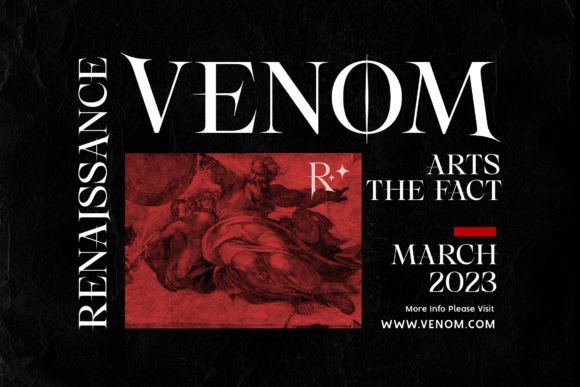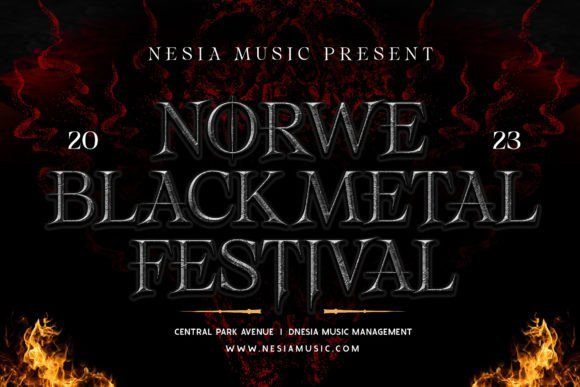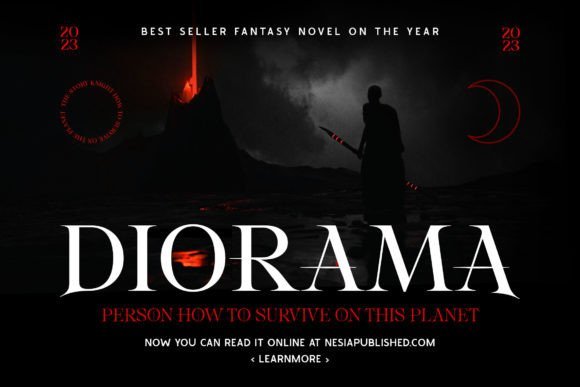
Rockmosh Font
Rockmosh is a classic magical and horror font that is perfect for your upcoming projects. Such as a logo, branding, modern advertising design, Halloween, gothic design, apparel, hardcore music, fantasy animation or movie, logos, adventure poster quote, game industry, music/band, book/cover Title, editorial design, website/blog, card, custom mug, pillow, t-shirts, and any gothic hand-lettered needs.